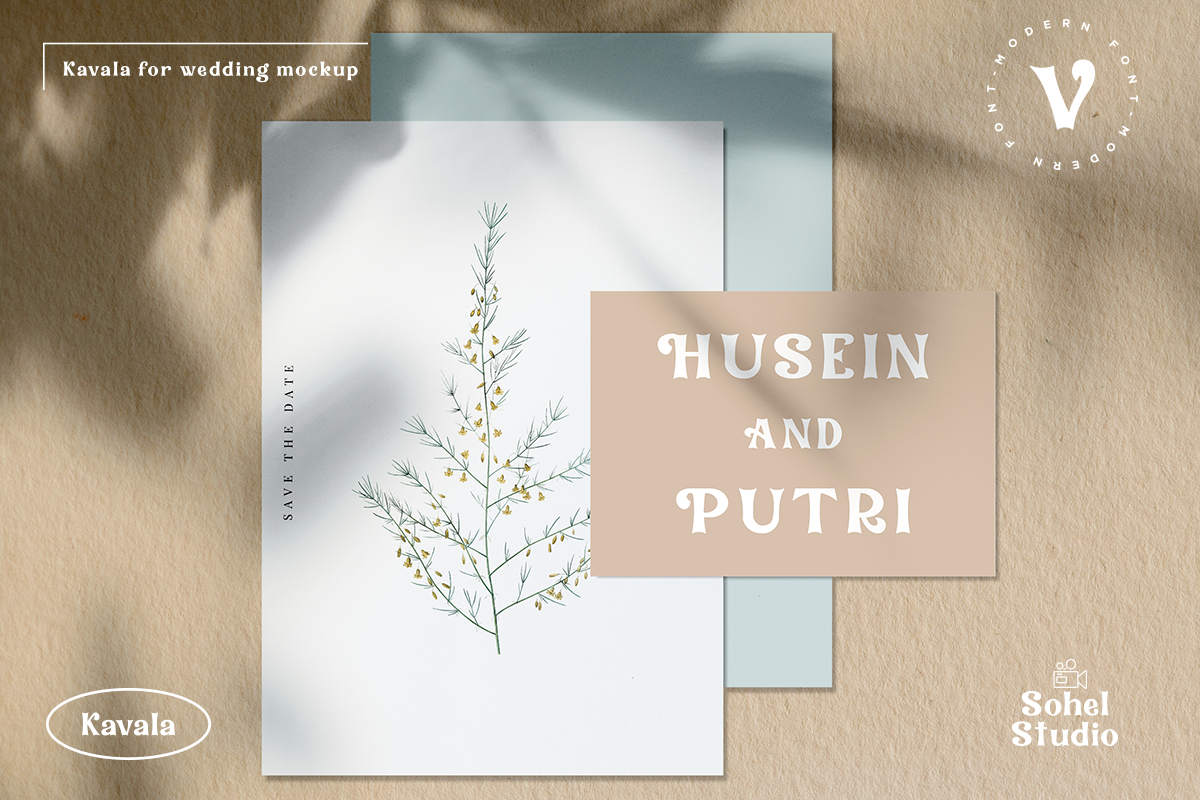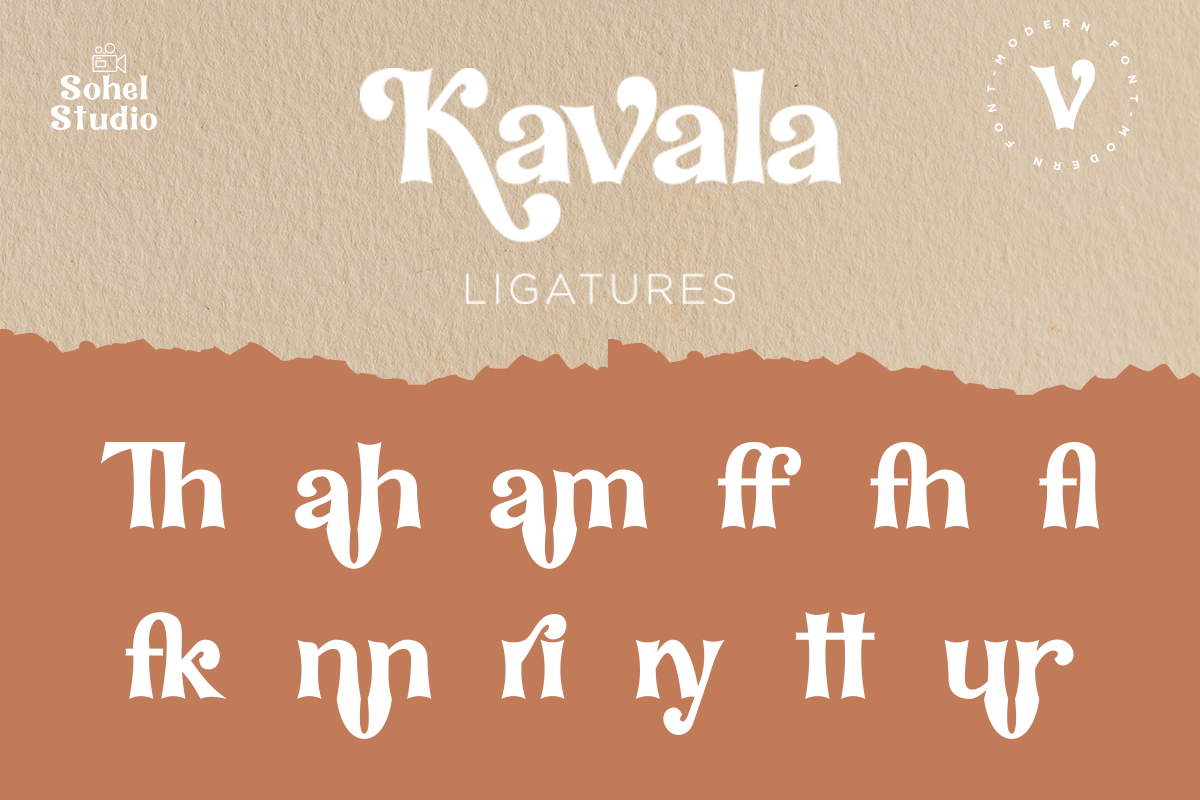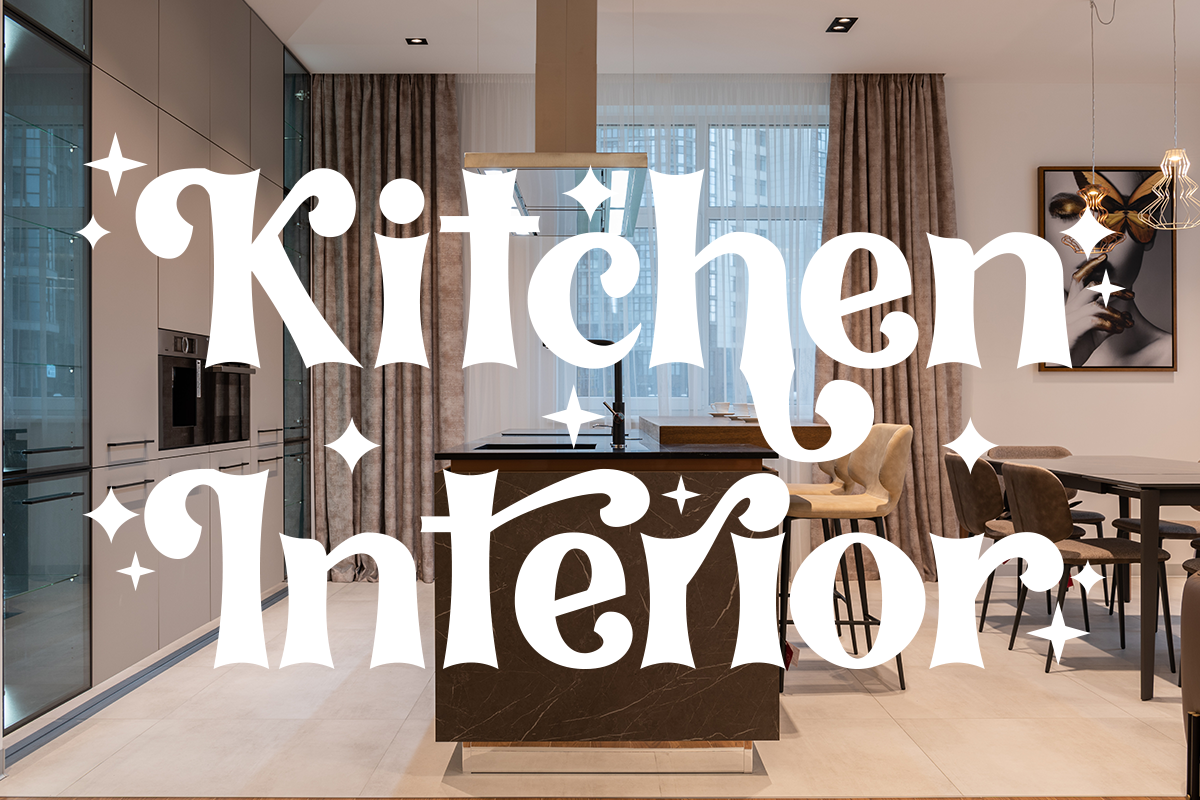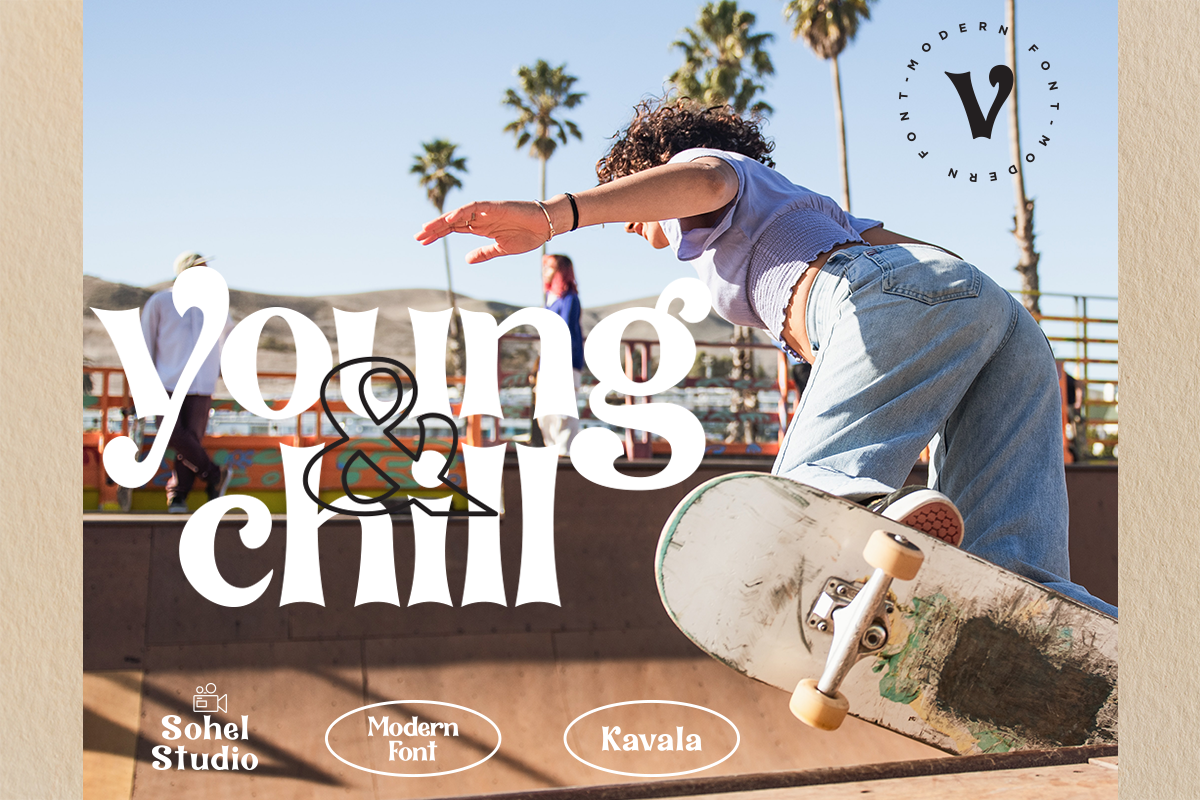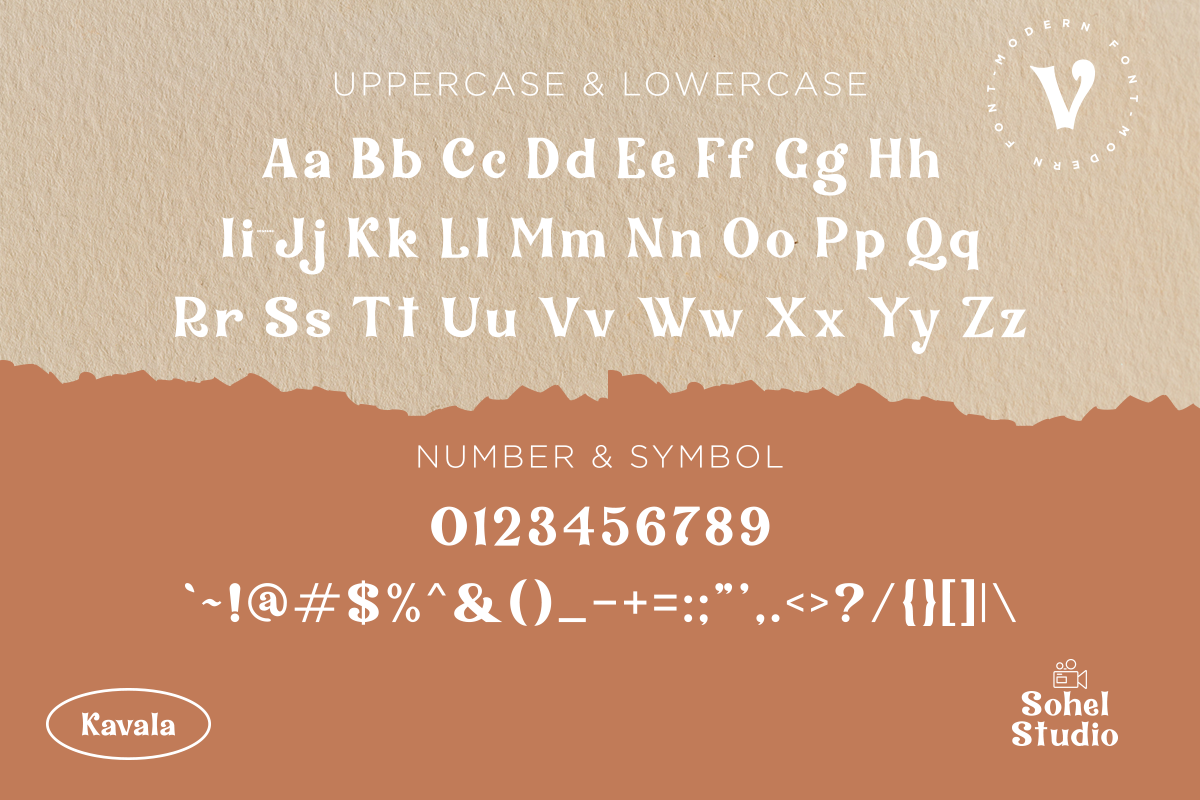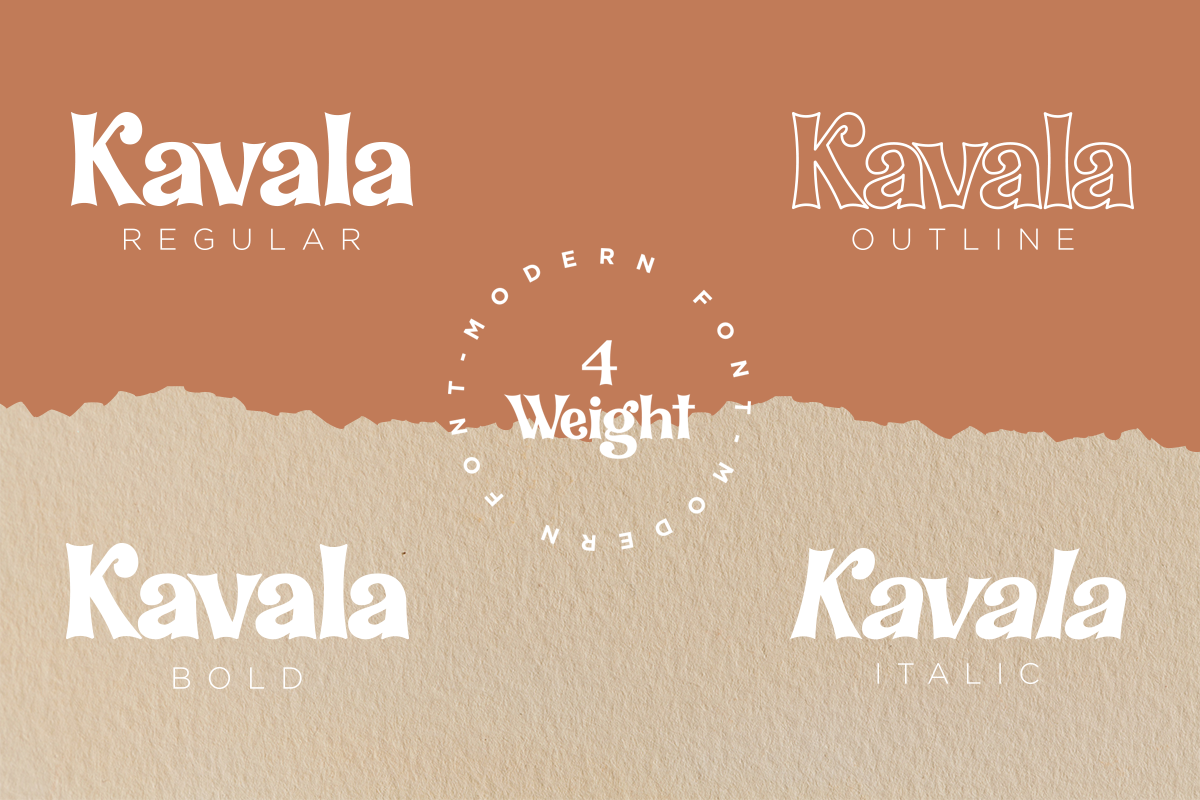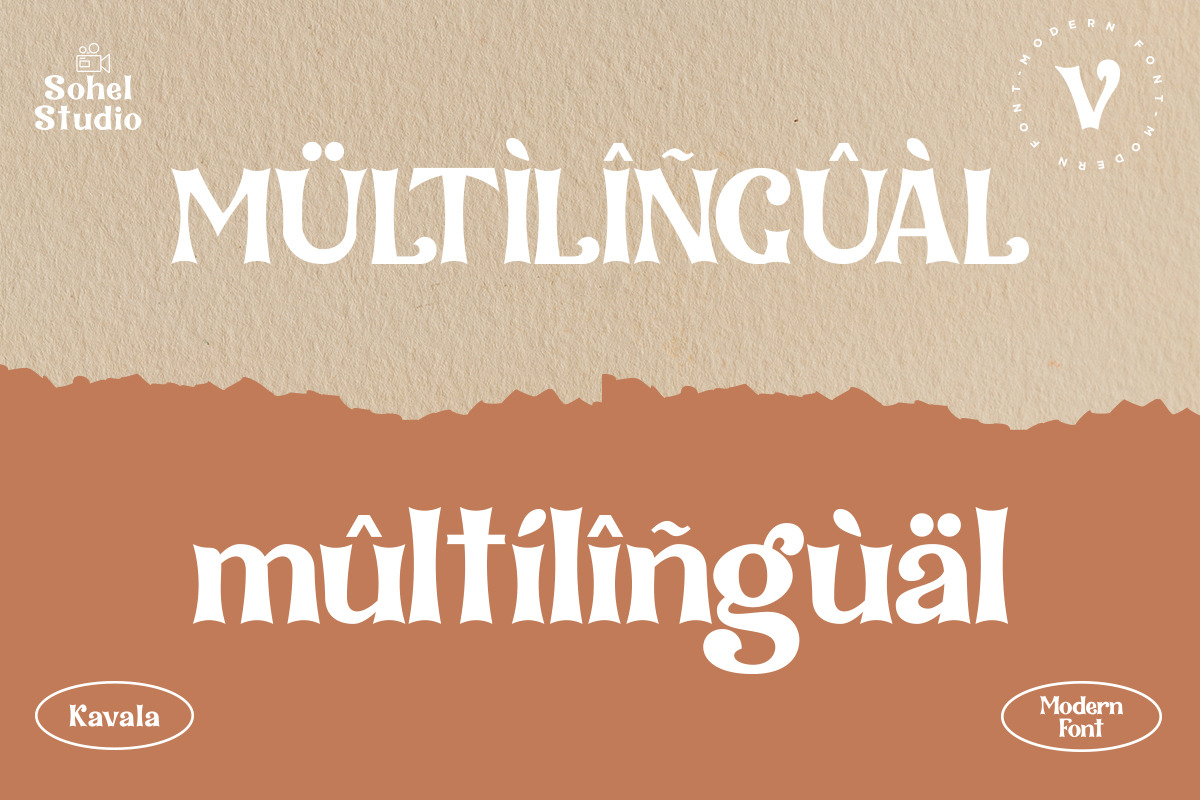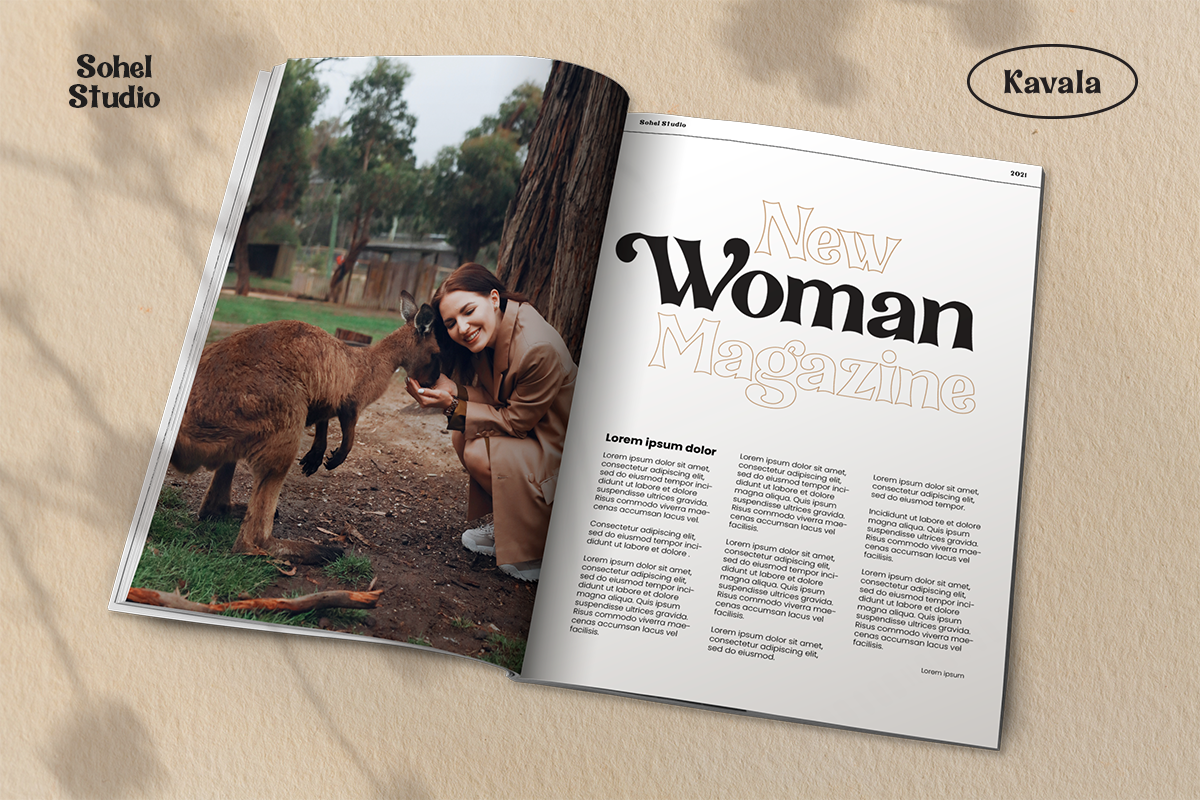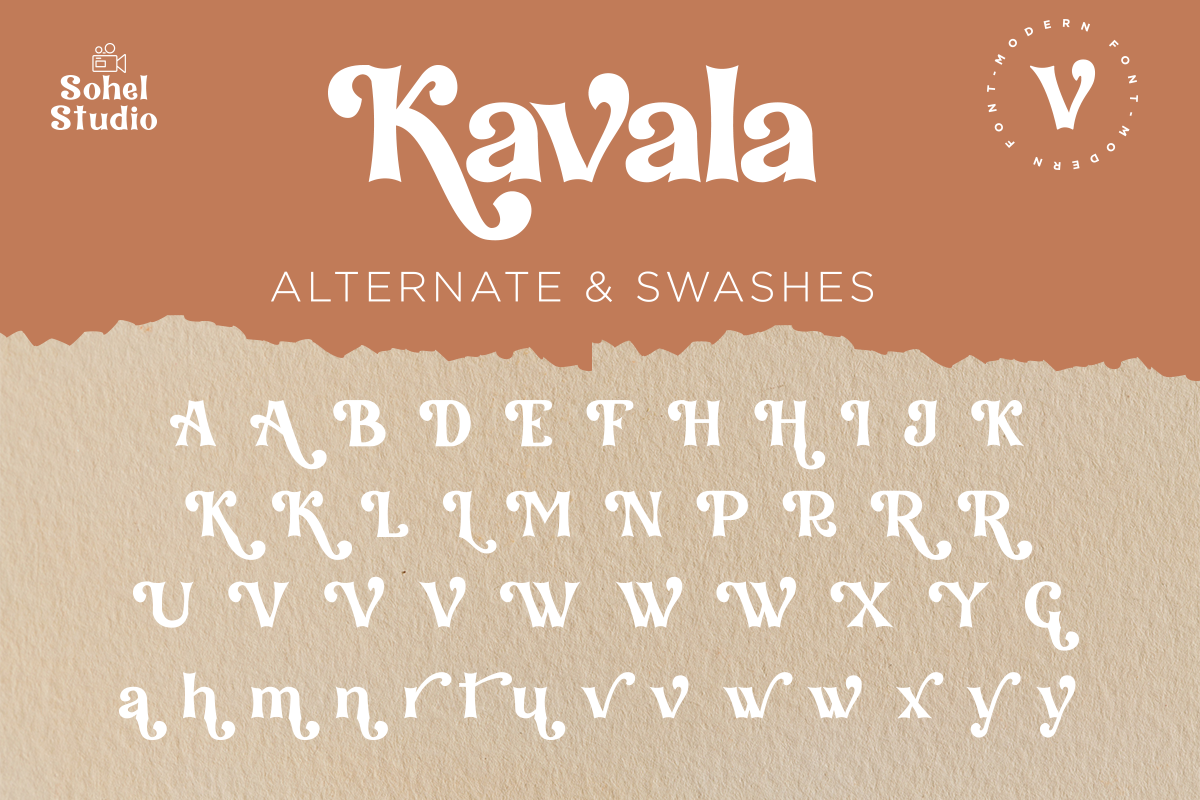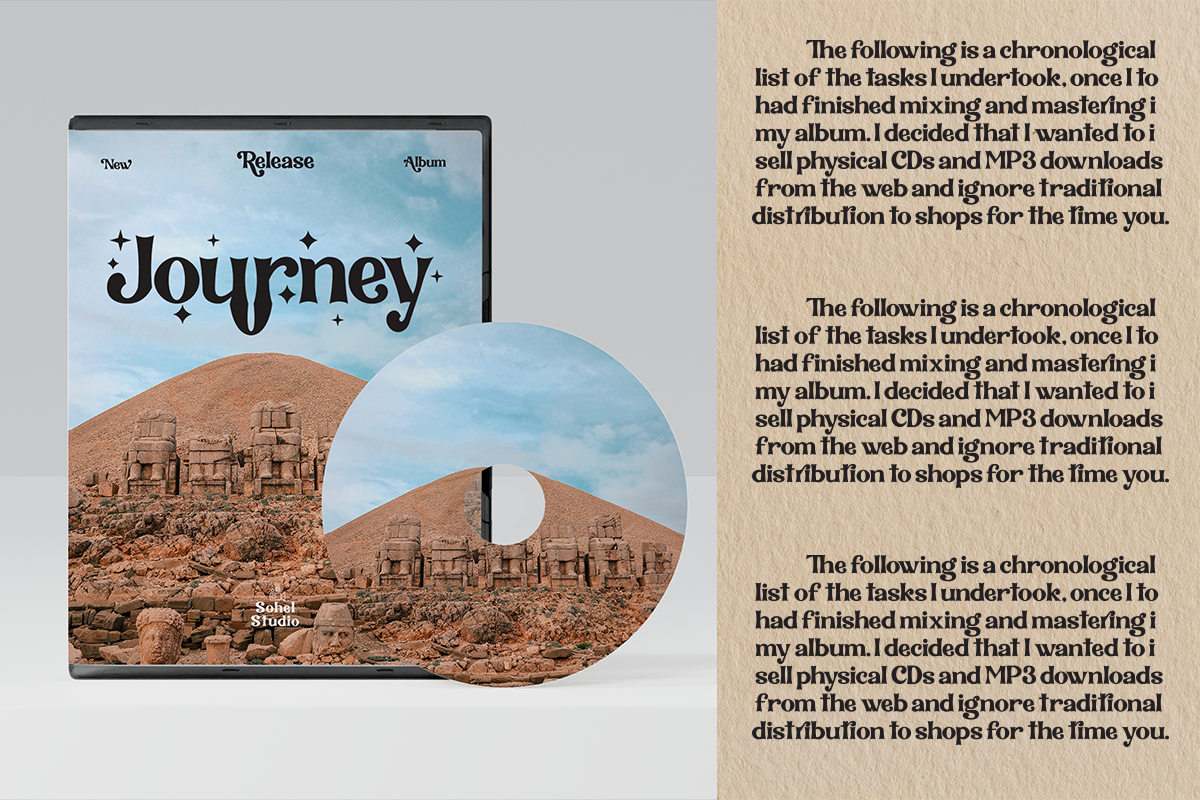
Kavala - Modern Serif
Kavala – Modern Serif Font Is a modern serif font it's a cool modern take on a retro classic, and it's ready to make a lasting impression on your merchandise, quote designs, header text, logos & branding, advertisements and much more. It's packed with plenty of alternates and ligatures to really bring it to life, and give you a wide range of customisation options.
- 4 Weights font (Regular,Italic,Bold,Outline)
- Lowercase and Uppercase
- Beautiful Alternates & Ligatures
- Multilinguale